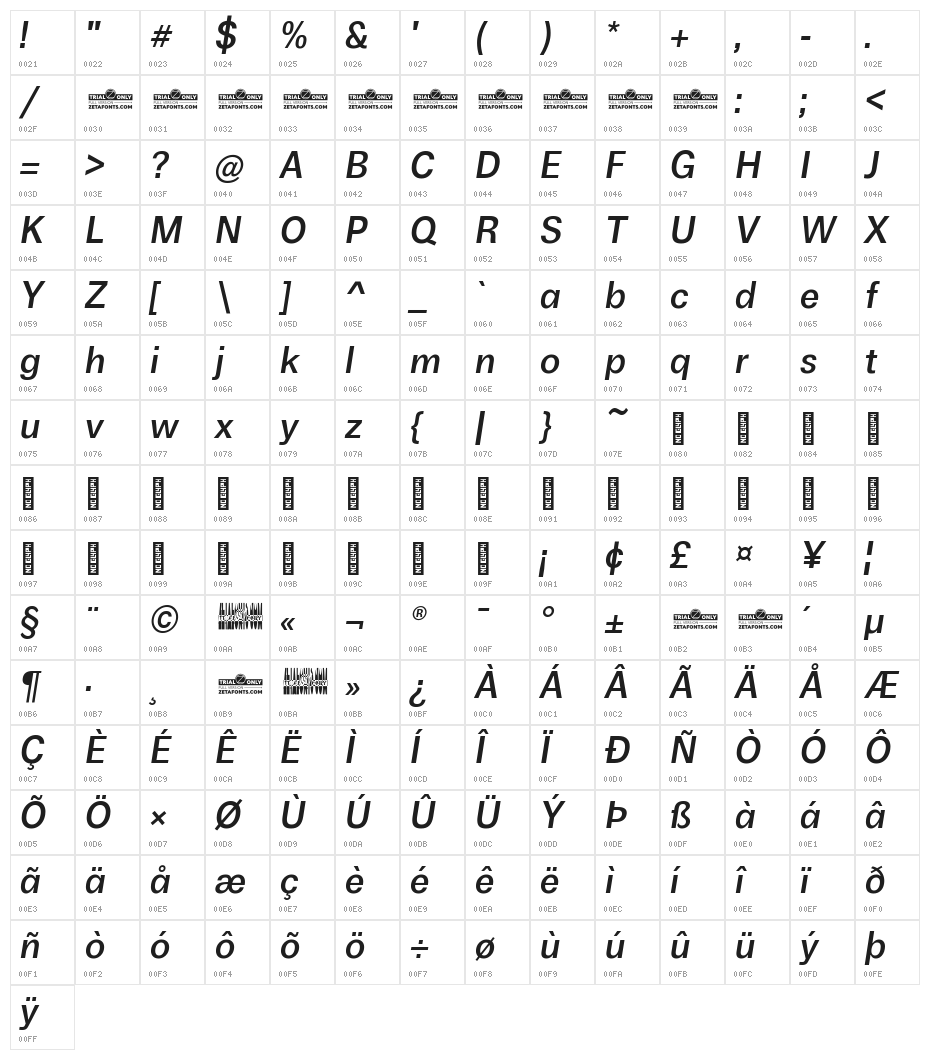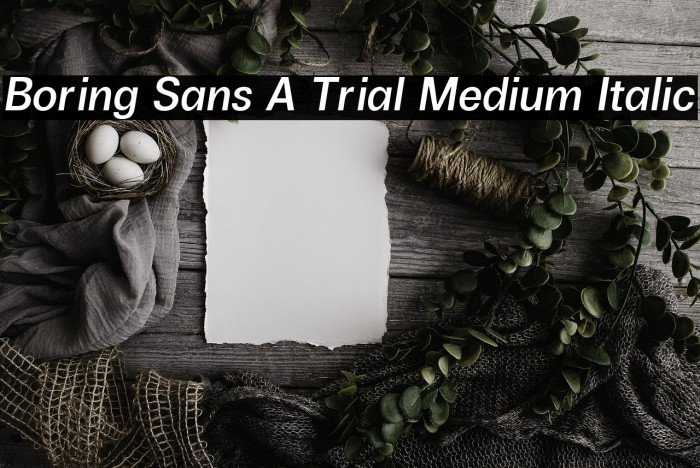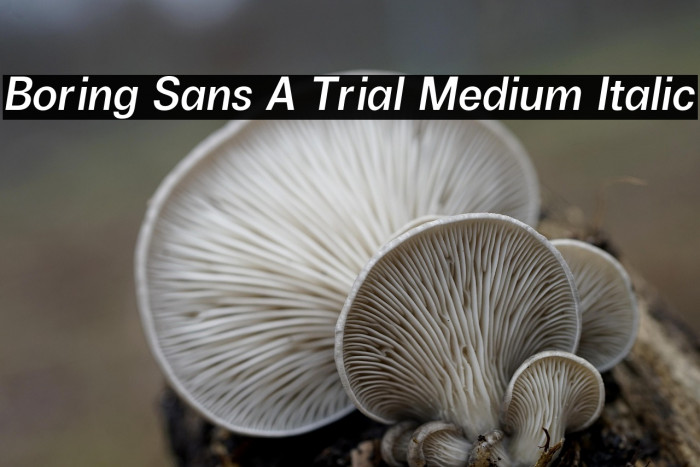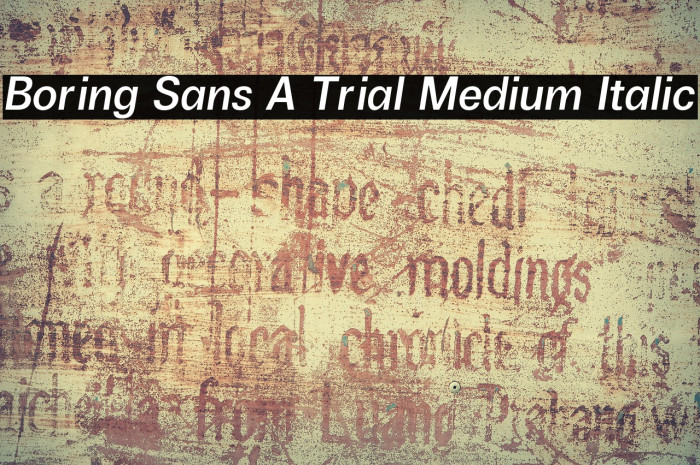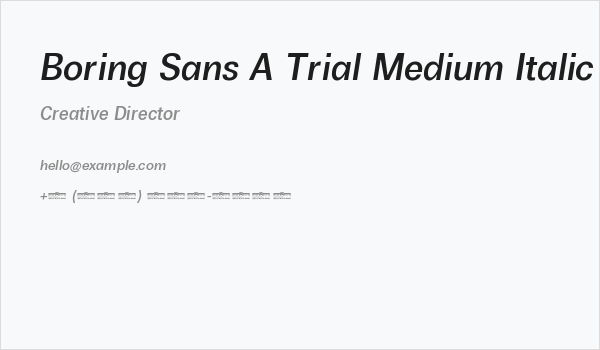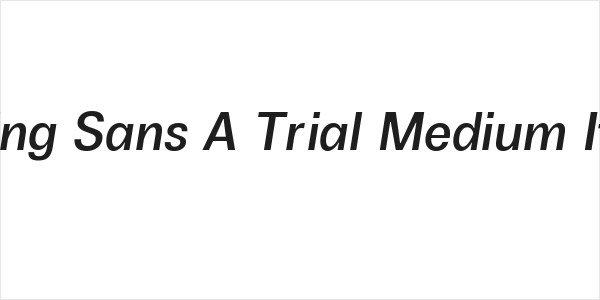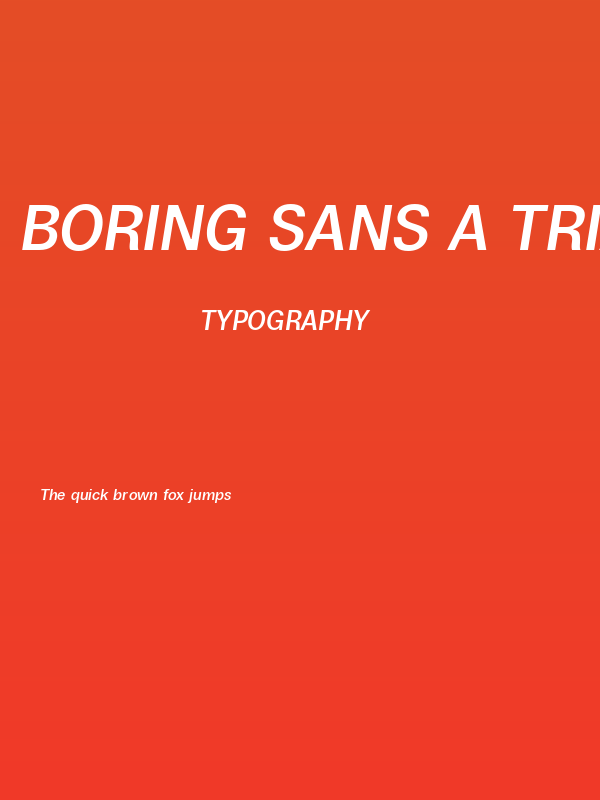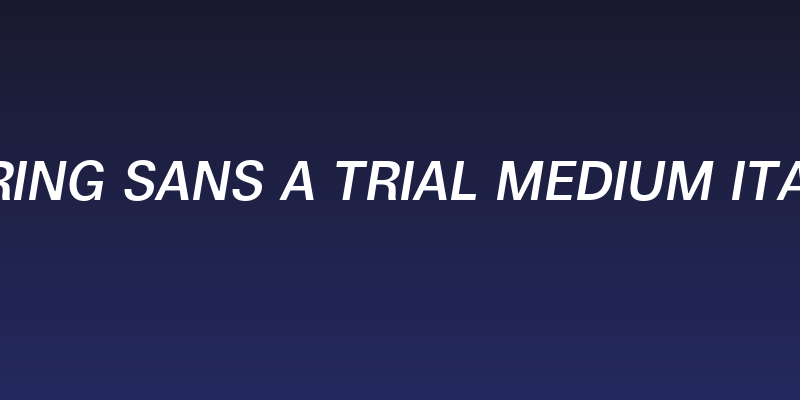
Boring Sans A Trial Medium Italic Font
Boring Sans A Trial Medium Italic Description
This typeface features a clean and modern sans-serif design with a slight italic slant, giving it a dynamic yet professional appearance. The characters are well-proportioned with a consistent stroke width, contributing to its legibility across various sizes. The uppercase and lowercase letters maintain a harmonious balance, while the numerals and special characters are crafted to match the overall aesthetic. The font's simplicity and clarity make it suitable for a wide range of applications, from digital interfaces to print media.
| Proposed Projects | Ideal for corporate branding, web design, editorial layouts, and advertising campaigns. |